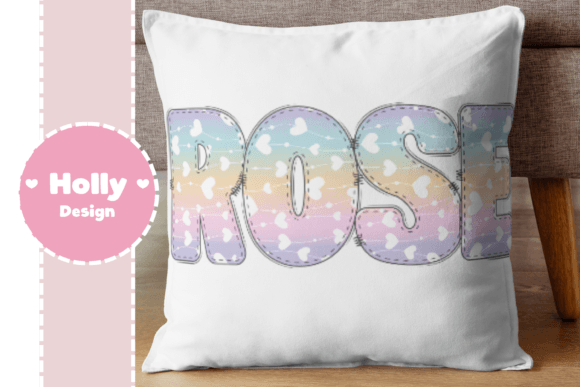
Pastel Font is a lovely and beautifully designed color font. The font is hand drawn and its letters are full of patterns that represent the day of lovely. Choose from trendy handwritten, display, and decorative styles for invitations, logos, posters, and more.
Pastel Love Font